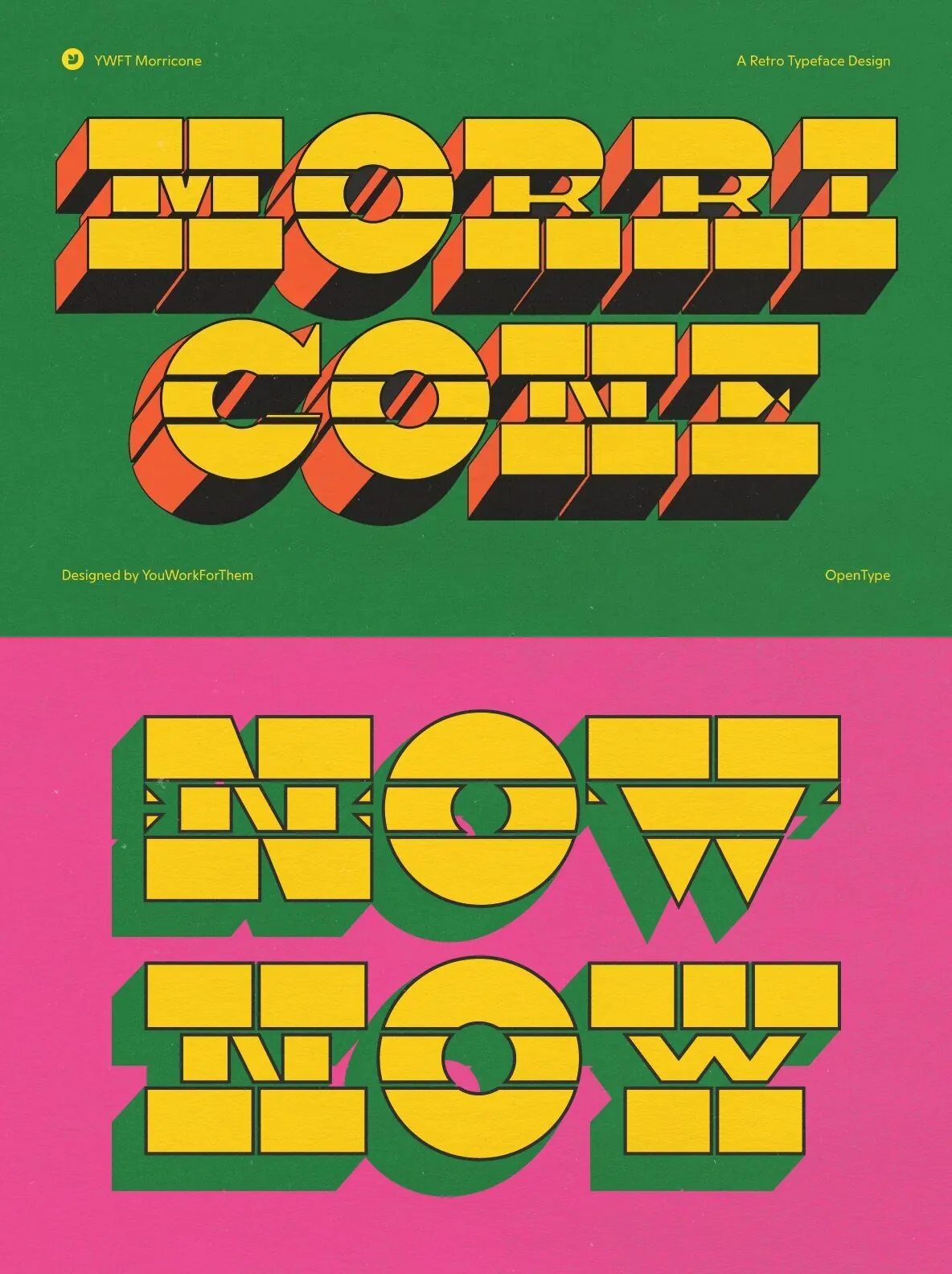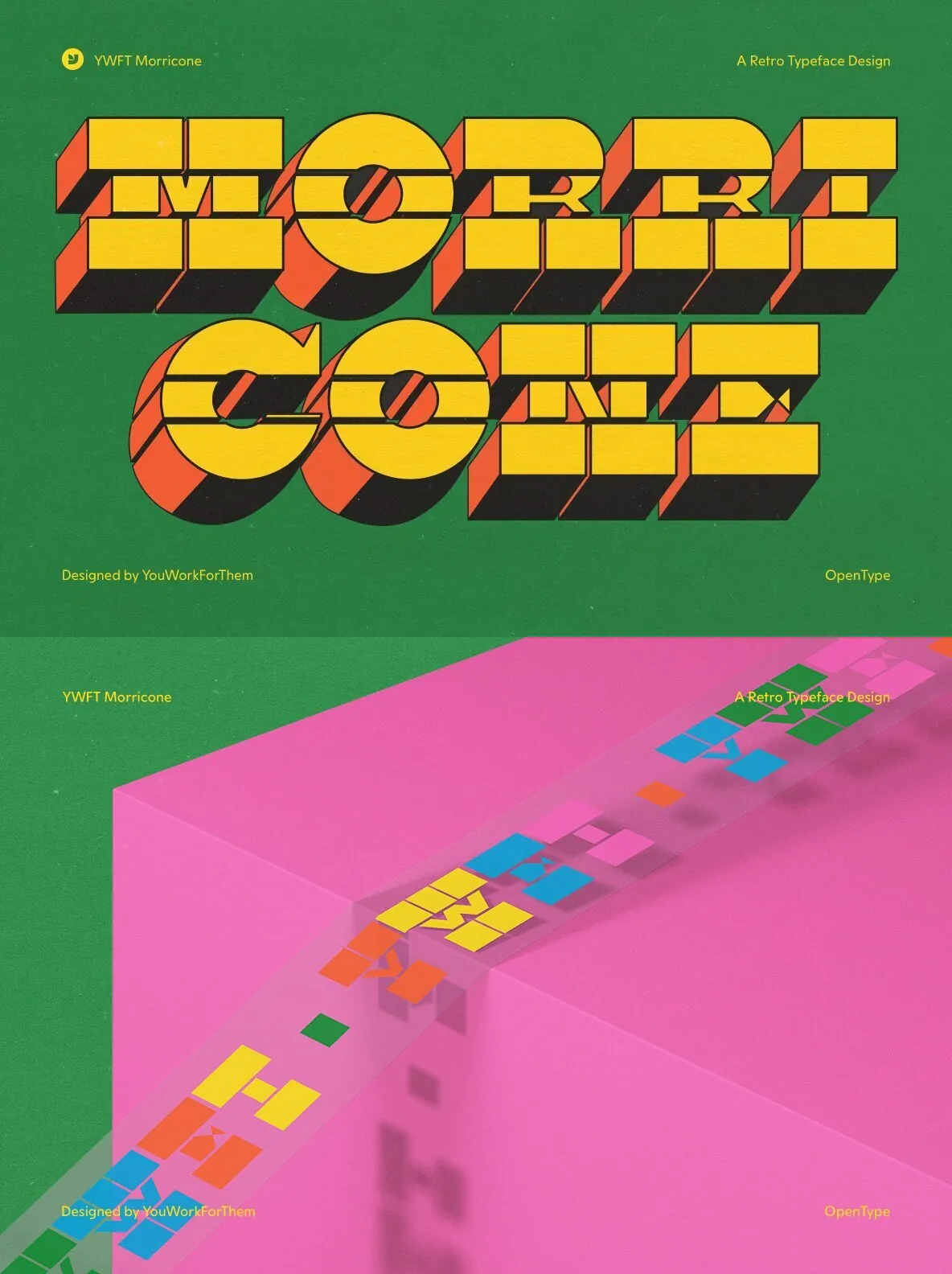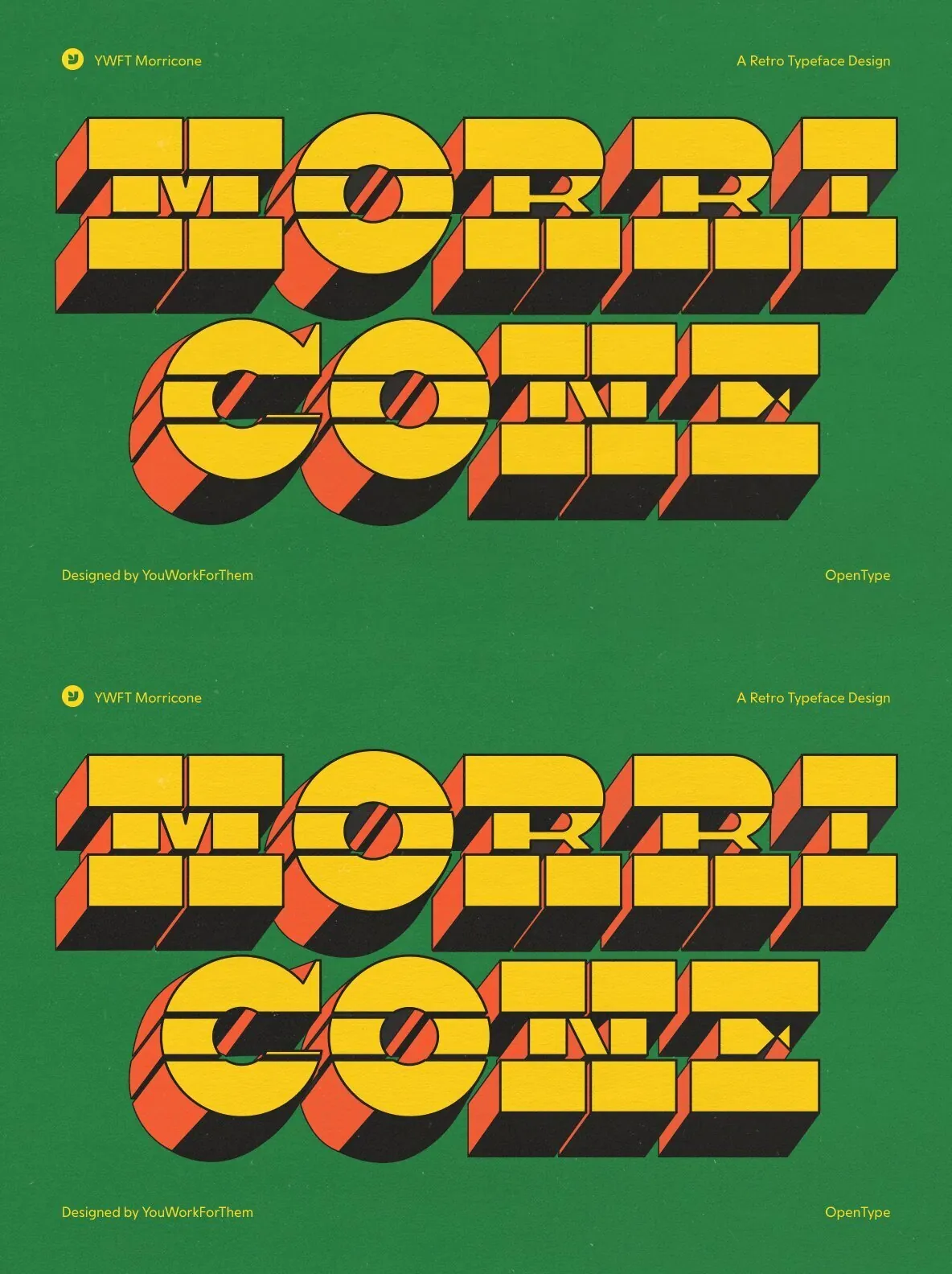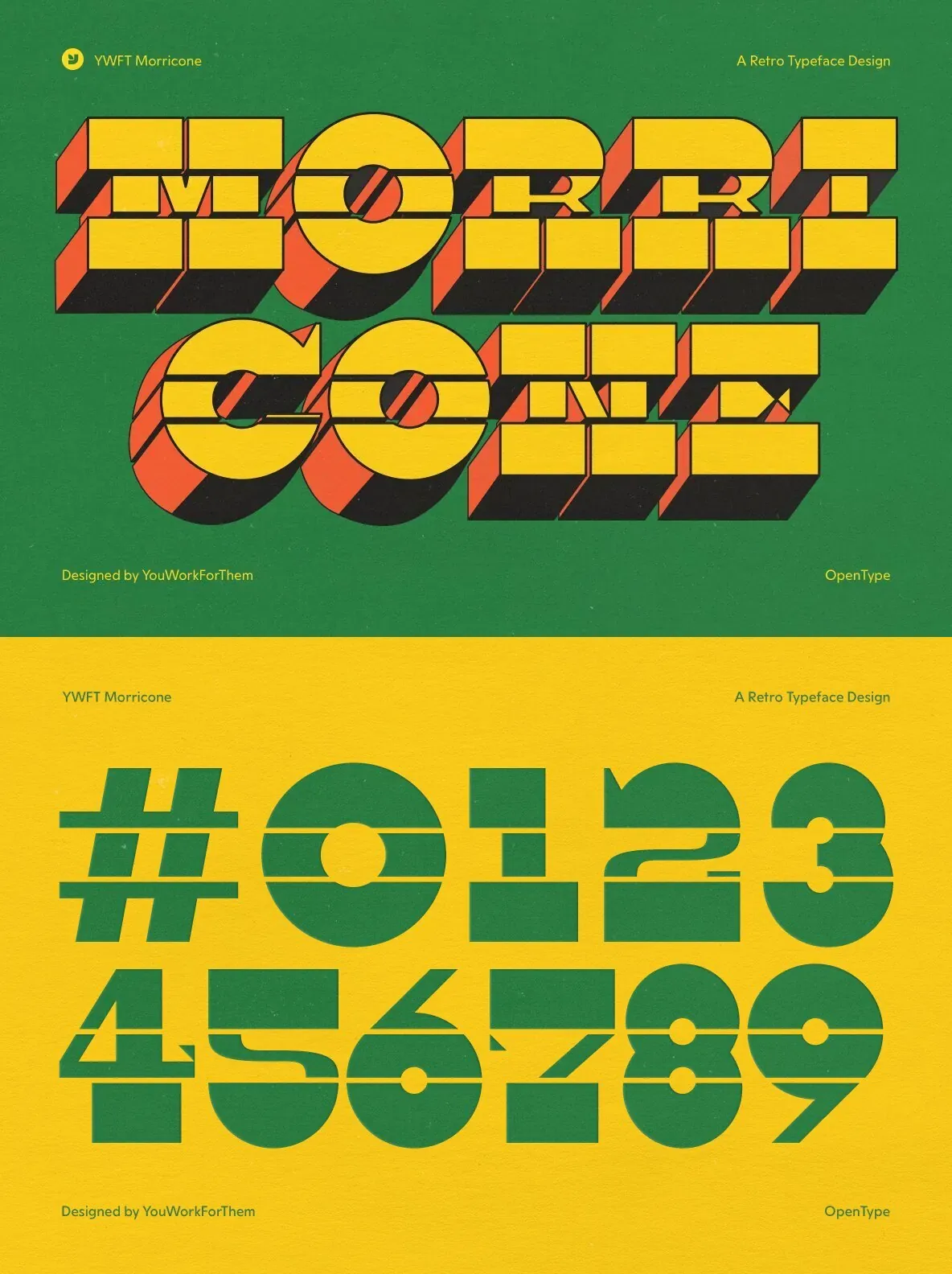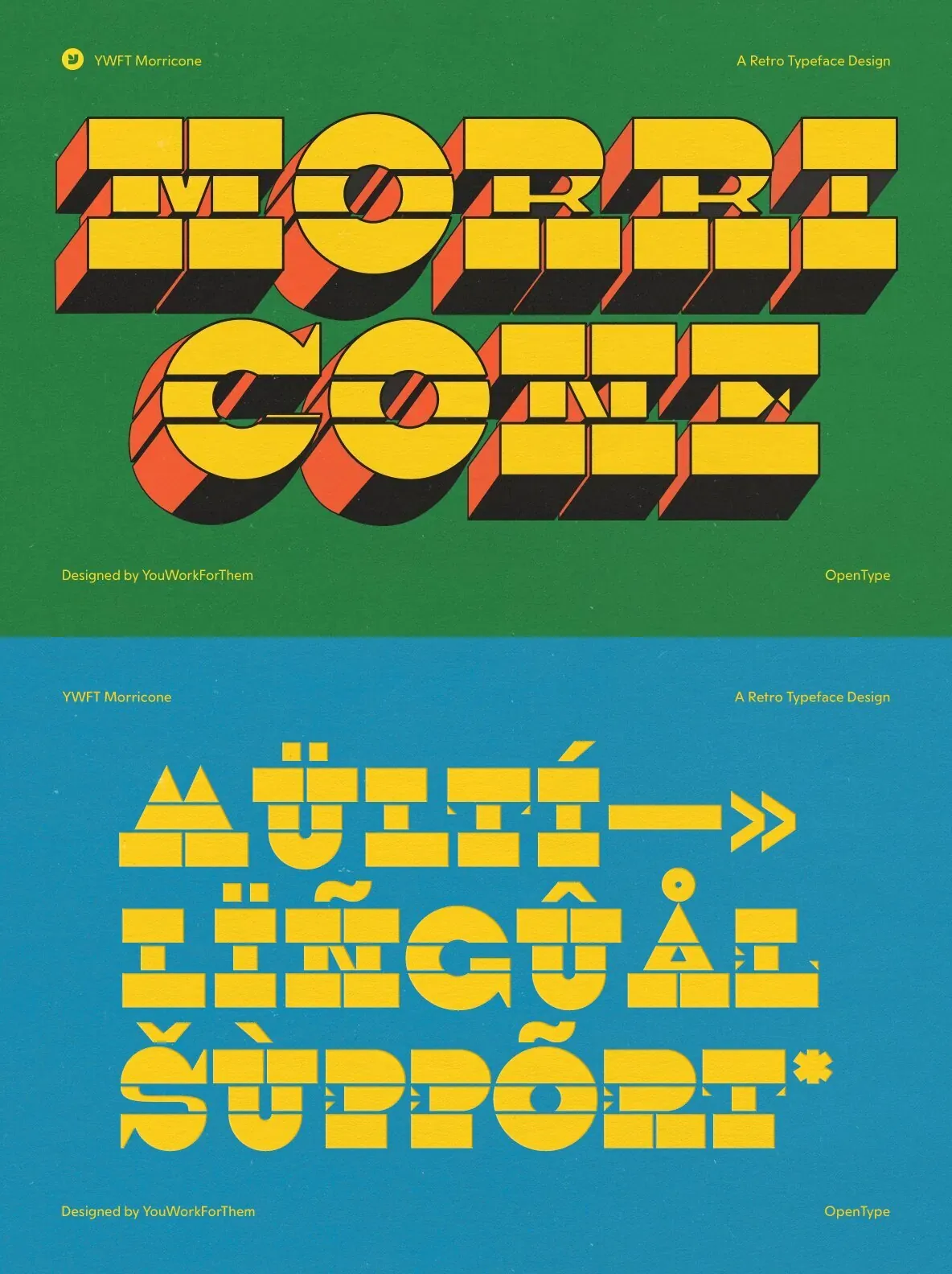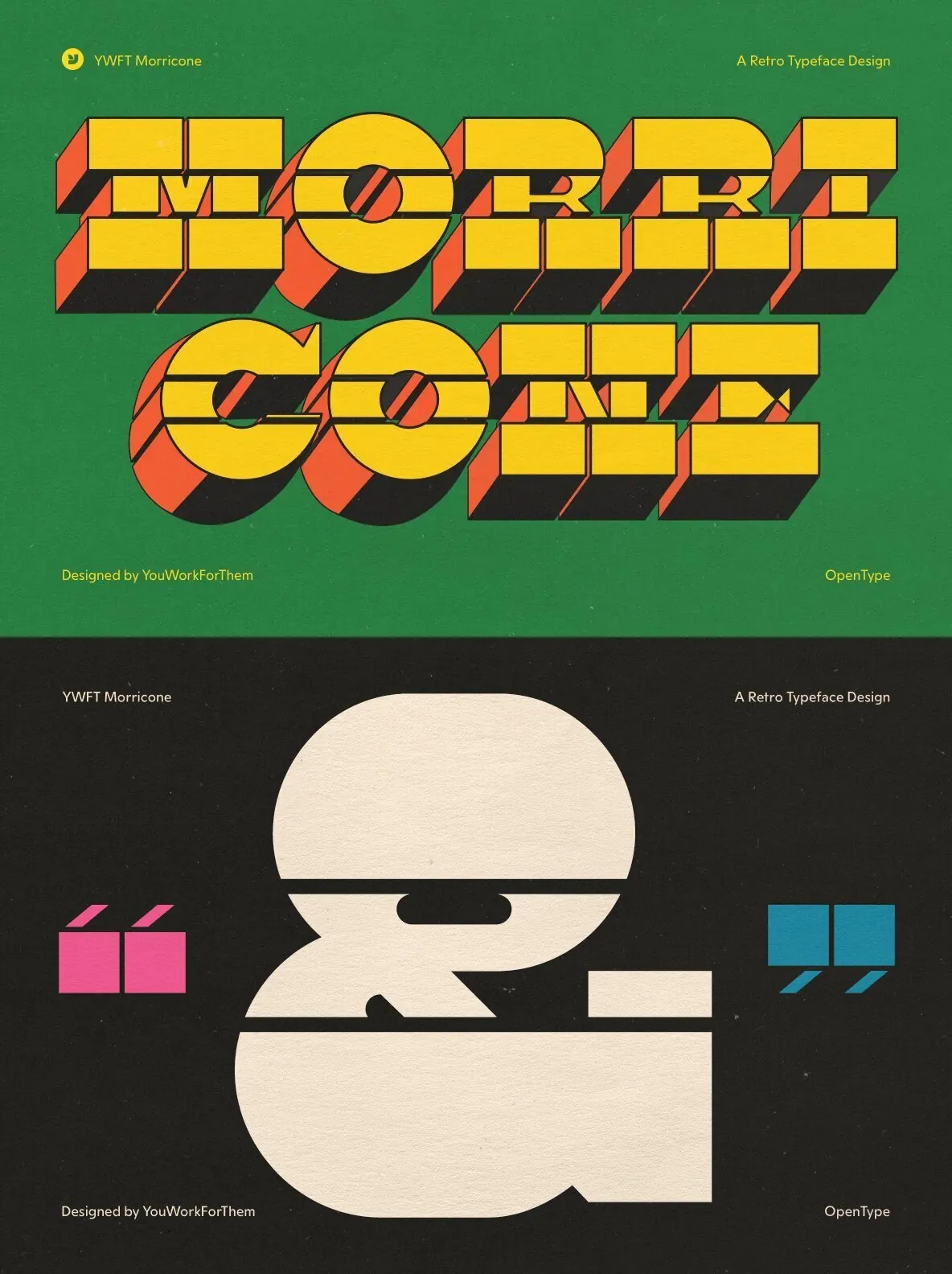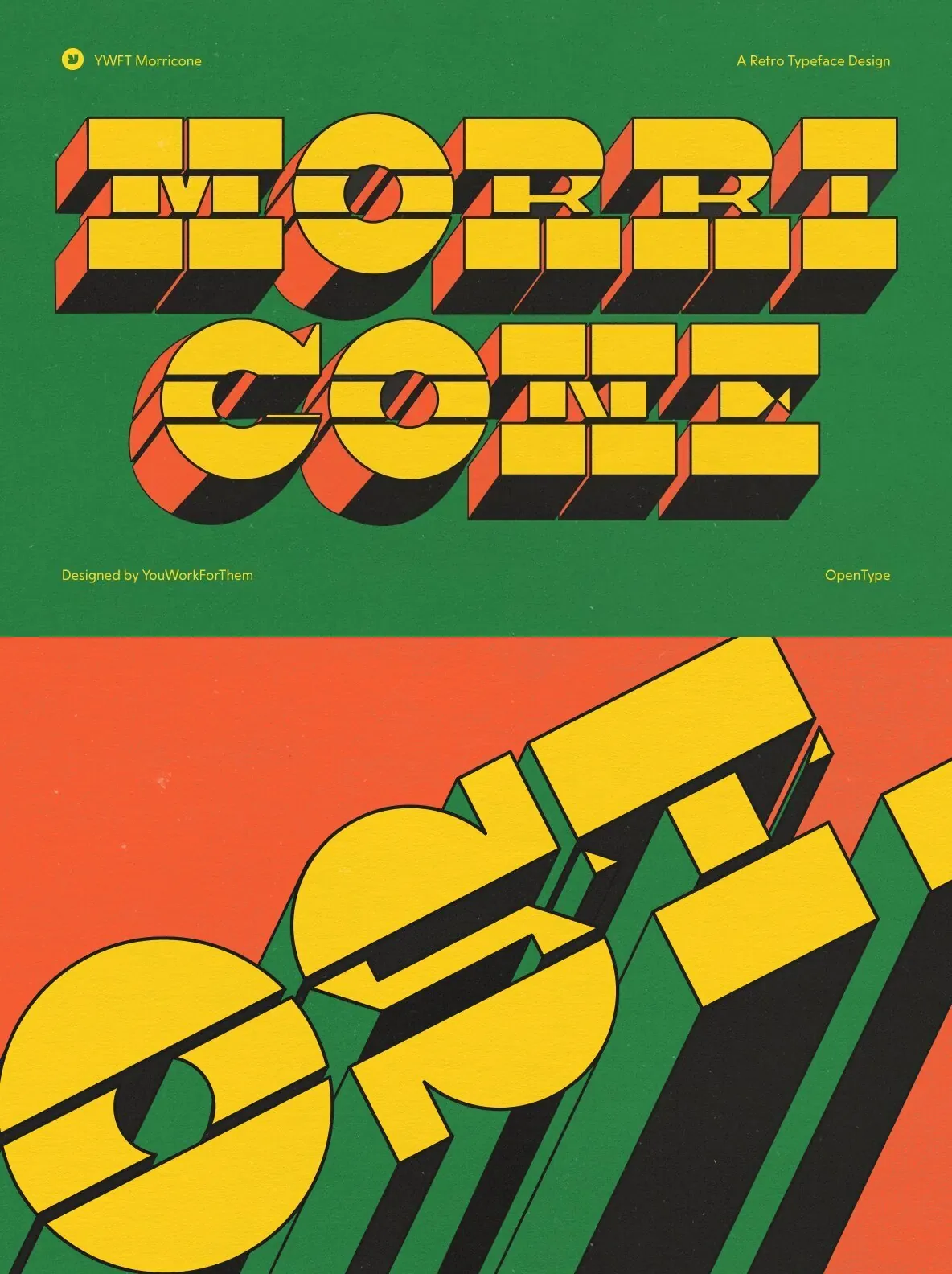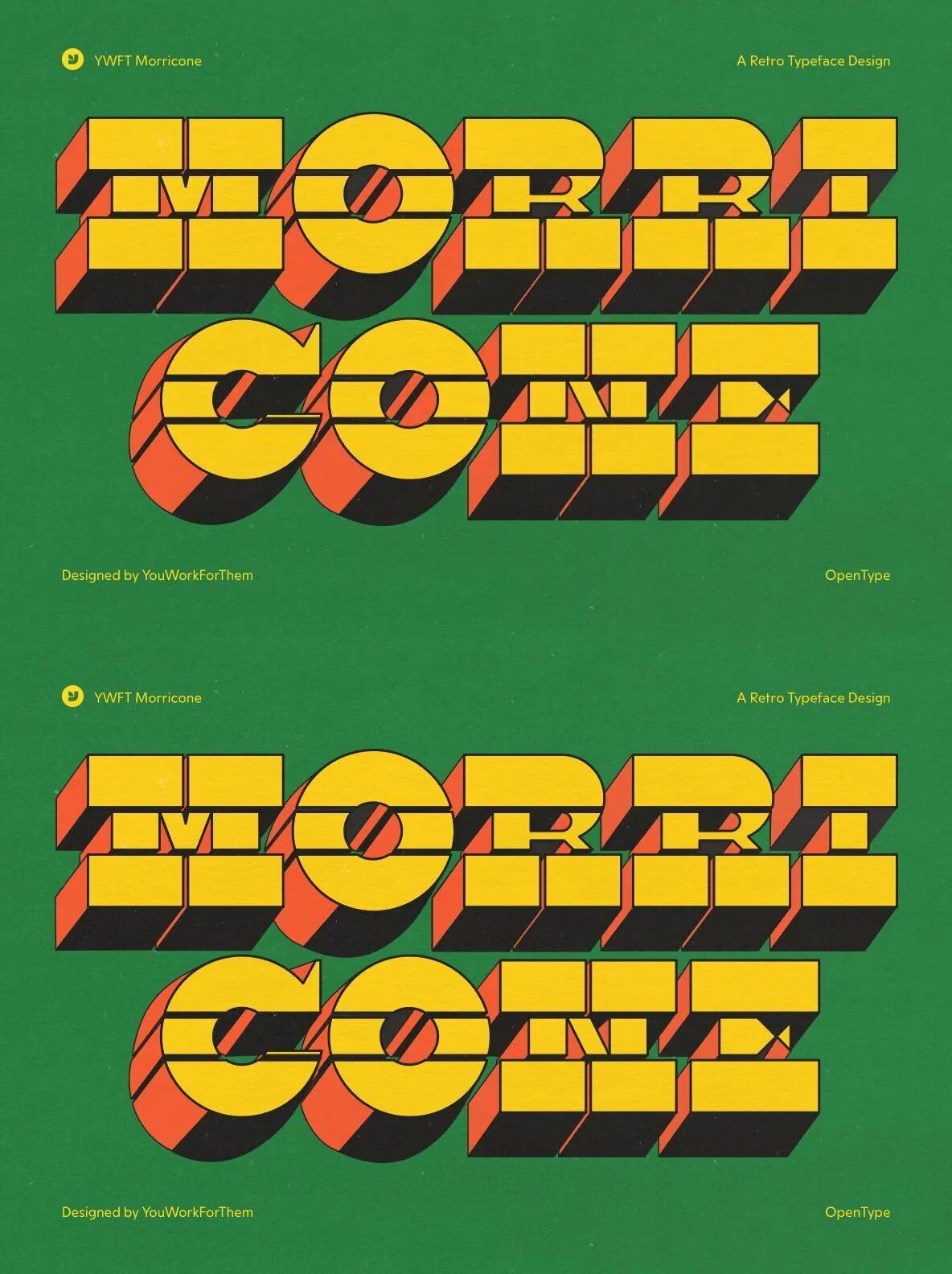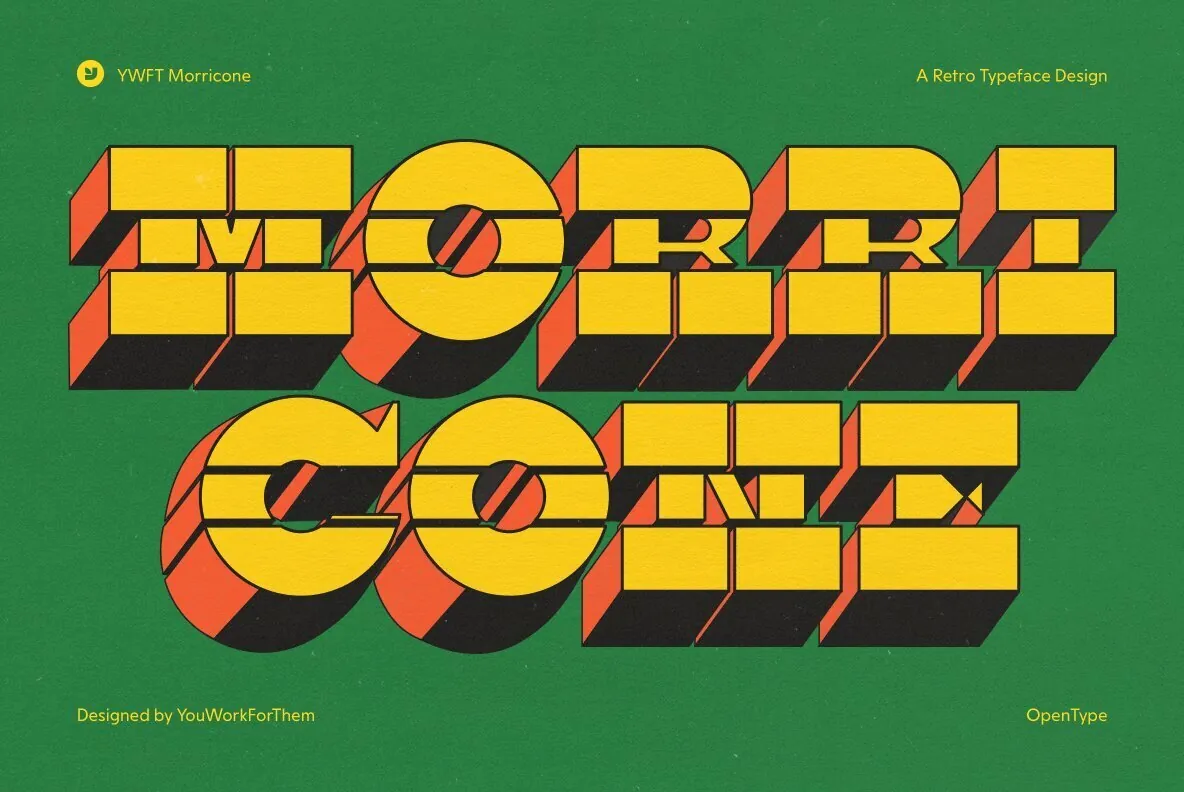
YWFT Morricone — Old-World Slab, Modern Calm
YWFT Morricone blends Egyptian and Italian slab serif ideas from the 1800s into a clean, current voice. YouWorkForThem designed it for designers who like historical structure but need contemporary clarity in branding, editorial, and marketing work. The result feels rooted and direct, with the steady rhythm you expect from a slab serif and the restraint associated with mid-century modern typography.
The typeface uses a seamless unicase setup, with uppercase alternates available within the lowercase options. That approach keeps layout consistent while giving you flexible letterforms when you want extra emphasis or a different tone. Designed by YWFT Travis Stearns, YWFT Morricone sits comfortably between heritage reference and modern graphic design needs.
Key Features
Perfect Fusion of Slab Serifs from 1800s
Inspired by Mid-century Modernism
Unicase Setup with Uppercase Alternates
Designed by YWFT Travis Stearns